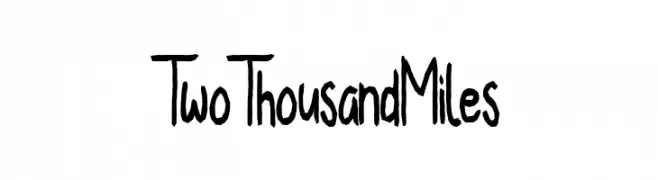
A lively, handwritten font with fluid strokes and dynamic character.
A playful, casual handwritten font with irregular strokes and a whimsical appearance.
Elegant handwritten script font.